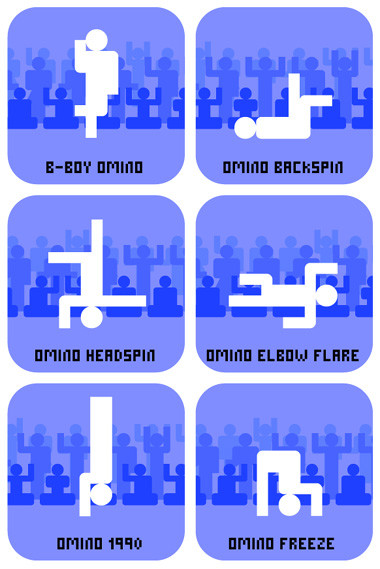
• Omino is the italian word for "little man" but it also stands for a stilized figure. Nearly 300 chars, set may grow in the future (as the number of samples).
There needs to be a .gif animation competition based on this font.
i had a pictogram font in progress too, but THIS is the shit!
I planned a pictogram font as well, but this set is HUGE!
Thank you Em42! It took me nearly three months to finish it, five mins per time... I decided not to use diagonals, otherwise the possibility would have been nearly endless!
The set has been expanded with approx. 30 Ominos :)